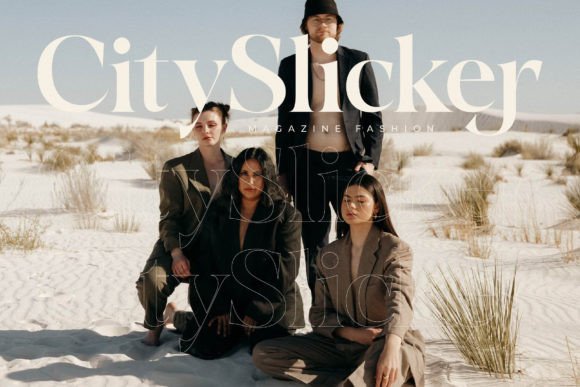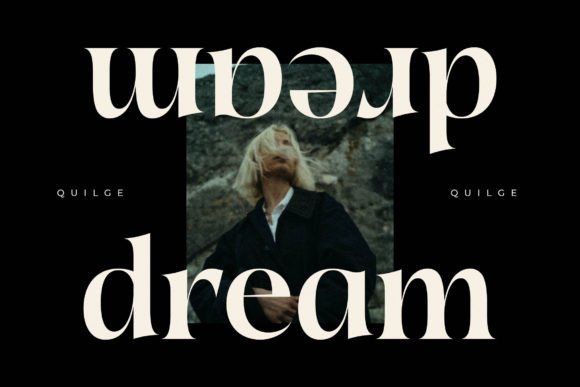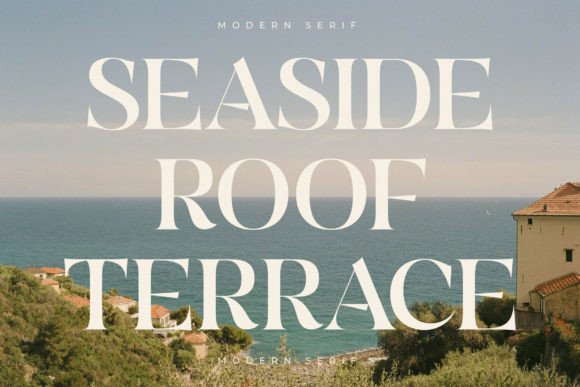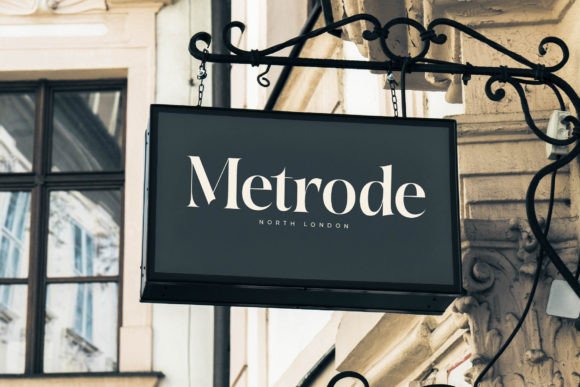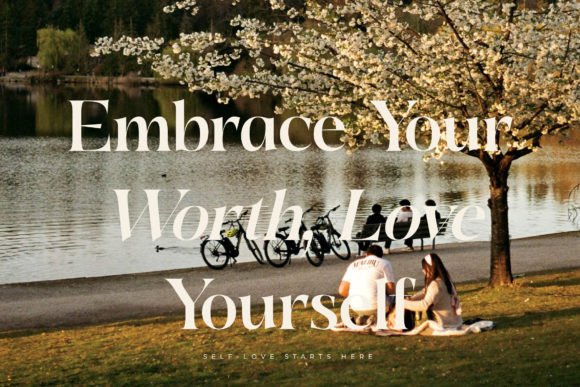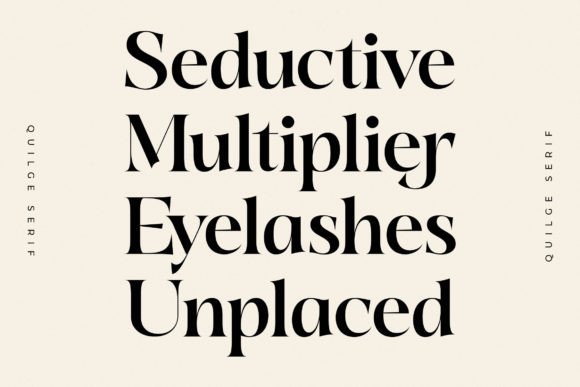
Introduction to Quilge Font
Have you ever stumbled upon a design that stops you in your tracks, making you wonder what magic went into creating it? For many designers, that ‘aha’ moment is what drives their passion for creating stunning visuals. For those who crave that same magic, we’re excited to introduce the Quilge Font, a luxury serif font that’s set to elevate your next creative project.
As a valuable resource for designers, Quilge Font offers a level of sophistication and elegance that’s hard to find in other fonts. With its high-quality design, it’s perfect for any project that requires a touch of luxury, from logos and branding projects to homeware designs and product packaging.
Key Features of Quilge Font
- Unique, hand-drawn design with a modern twist, ideal for creative projects and design resources.
- High-quality font with transparent background, allowing for seamless integration into various design elements.
- Supports a wide range of languages and characters, making it a versatile design resource.
Honest Review: Quilge Font
I recently had the chance to work with the Quilge Font, and I must say it’s been a game-changer for my design projects. This high-quality font is perfect for anyone looking to add a touch of elegance to their creative project.
Here’s what I love about the Quilge Font: ✨
- The transparent background option gives me so much flexibility when it comes to layering and composition.
- The font is incredibly versatile and works well for a variety of design styles.
Of course, no font is perfect, and I did encounter a few limitations: ⚠️
- The font is not suitable for very small text sizes, which can make it difficult to read.
- The font family is quite large, which can make it harder to manage in certain design software.
Overall, I’m really impressed with the Quilge Font. It’s a great addition to any design resource library, and I’m excited to see how it will enhance my future creative projects.
Quilge Font is commonly used in graphic design, digital art, and typography projects. It’s perfect for creating posters, flyers, and other promotional materials with a high-quality and professional look.